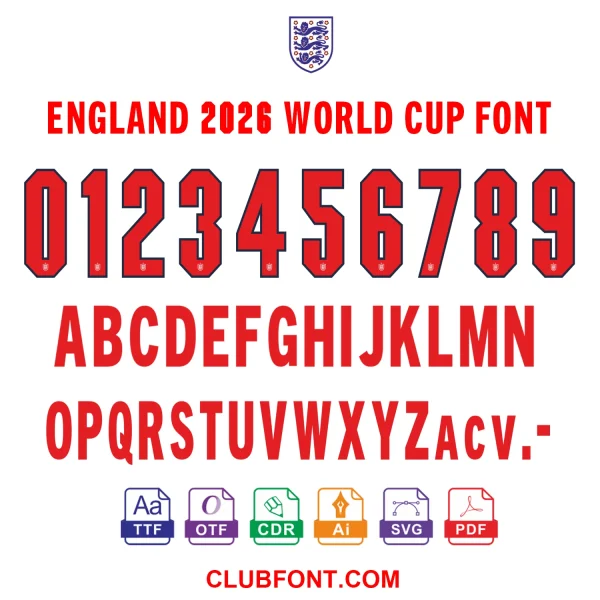
Unleash the pride of the Three Lions​ with this exclusive digital font pack. Featuring installable TTF & OTF fonts​ plus scalable CDR & PDF vector files, this kit perfectly mirrors the typography seen on the England 2026 World Cup kits. Ideal for customizing Harry Kane #9 jerseys, creating pub signs, or crafting high-quality fan merchandise. Instant digital download—no physical item ships.
England 2026 World Cup Font Download – Authentic Kit Typography for Fans & Designers. Prepare your creative projects for the world’s biggest football tournament with our exclusive England 2026 World Cup font download. Designed for die-hard Three Lions supporters and professional graphic designers alike, this premium kit captures the grit, pride, and bold aesthetic of English football. Whether you’re customizing matchday gear, designing client campaigns, or creating viral social media content, this instant download provides everything you need to celebrate England’s journey to glory with authentic typography.
Perfect Applications for the England 2026 Font
Why Choose Our England 2026 World Cup Font?